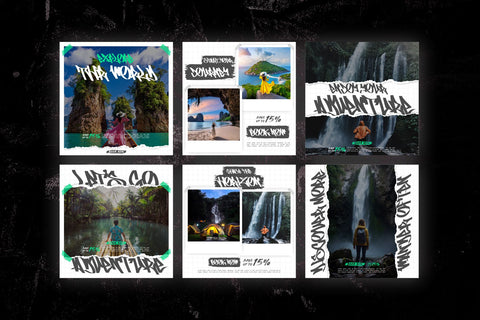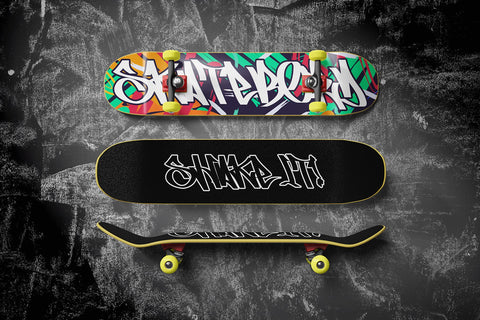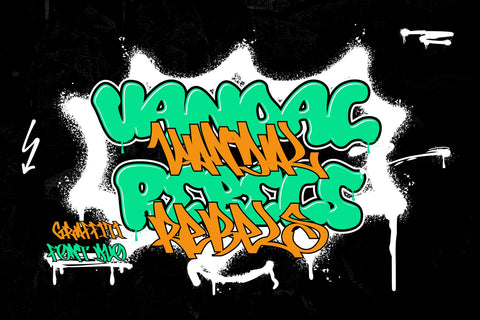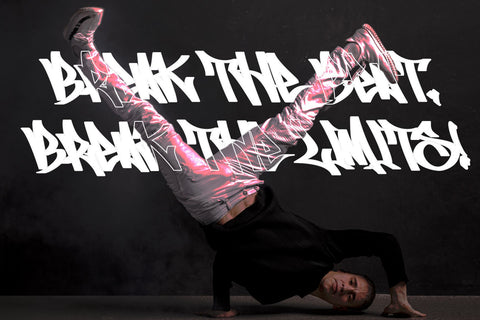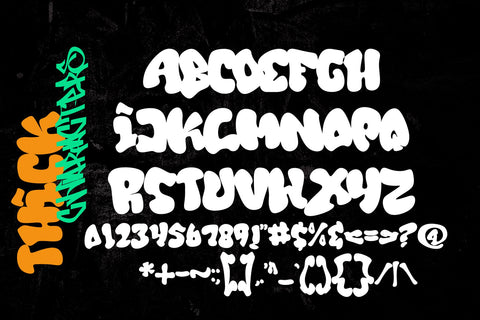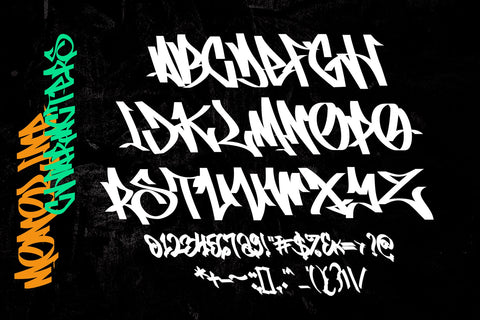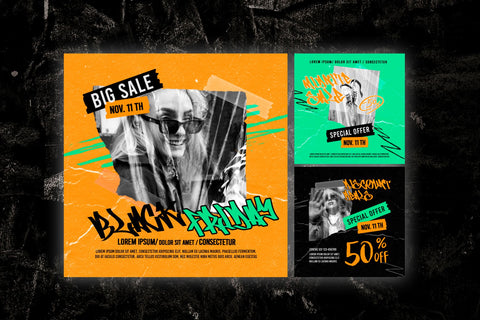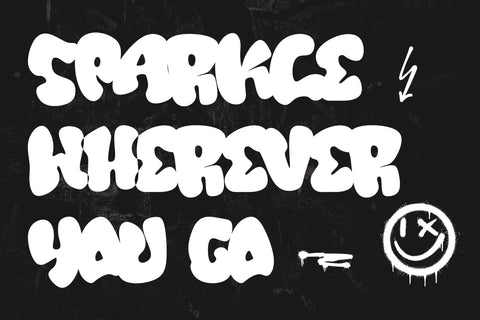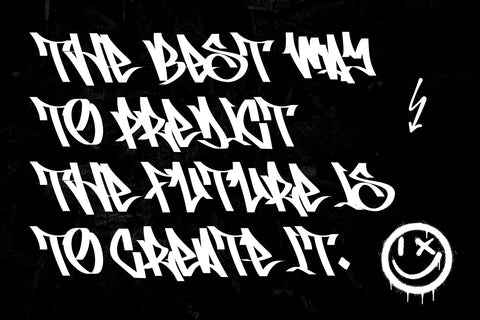
Vandal Rebels Graffiti Font Duo
"Vandal Rebels" is a graffiti font duo featuring two distinct styles: monoline and thick graffiti. The monoline style is characterized by consistent line thickness throughout the characters, offering a sleek and modern appearance. In contrast, the thick graffiti style features bold and expressive letterforms with varying line widths, conveying a dynamic and edgy vibe.
- Graffiti Characters looks